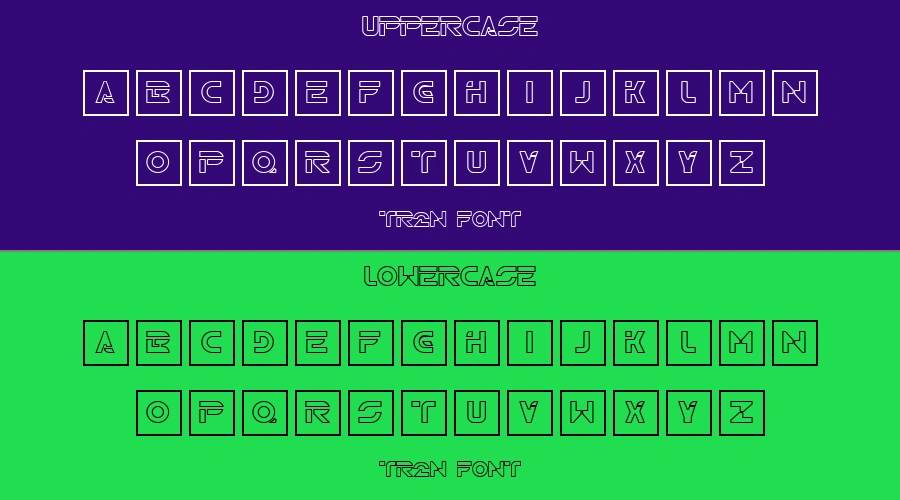
About TR2N Font
When typographic excellence matters most, TR2N Font delivers through its thoughtful blend of concave curves and human connection. Specially crafted for film titles, it offers the functionality and ceremonial suitability required for sophisticated design work. Every detail serves a purpose.
The character set showcases thoughtful details like unique personality alongside functional arrow sets. This proves especially valuable in section headers, where reliability directly influences results. Particular attention was paid to counter shape and generational relevance during development.